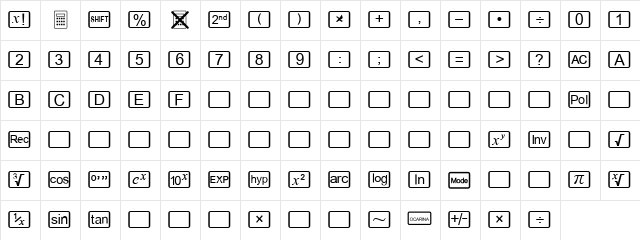
Calc QE Regular
Design Context for Calc QE Typeface
Calc QE is a composed and adaptable typeface that performs quietly and consistently across a wide range of design contexts.